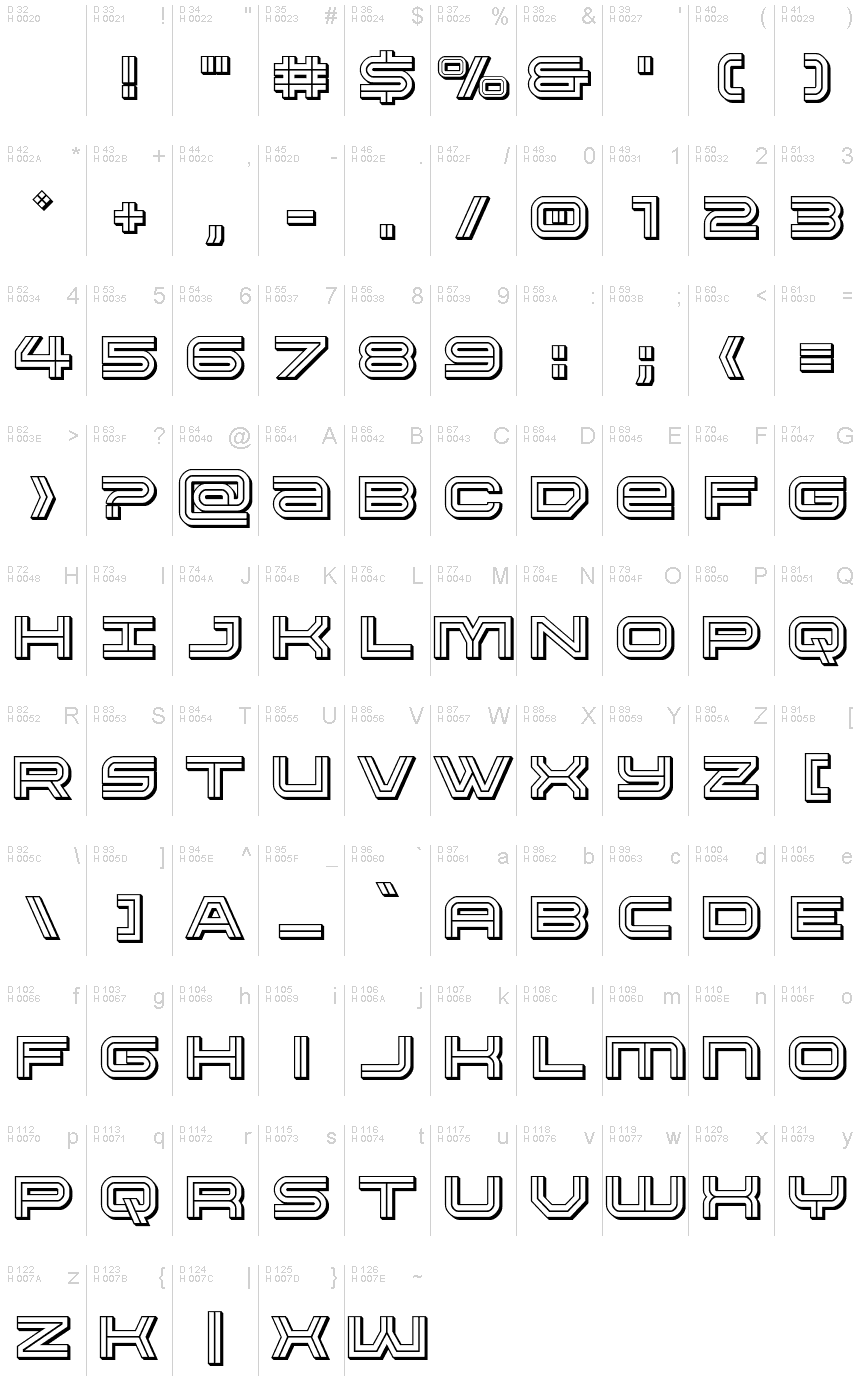
Gran Torino Deep 3D
Gran Torino Deep 3D is a bold, wide techno font created by Daniel Zadorozny. It's perfect for eye-catching typography designs, 3D logos, and science fiction projects that need a futuristic feel.